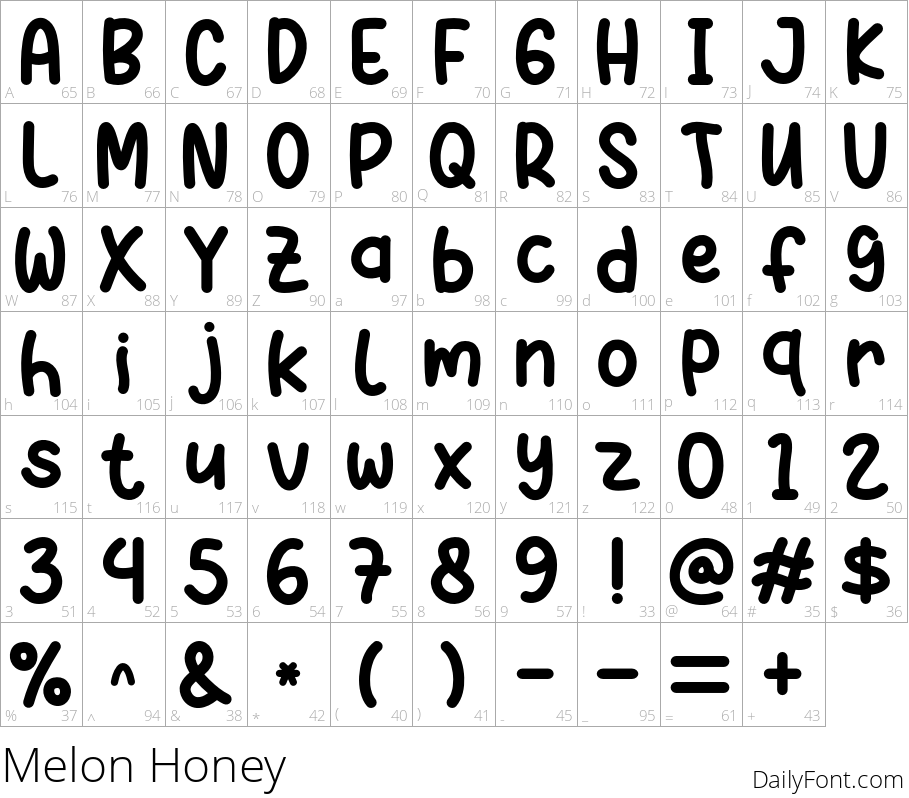
Melon Honey
Searching for a warm, approachable, and uniquely crafted handwritten font? Look no further than a sweet and friendly script like Melon Honey! This charming font is perfect for designers seeking a natural, effortless vibe that can be applied to a wide range of projects.
Melon Honey's organic feel makes it an excellent choice for creative endeavors where you want your message to exude warmth and personality. Its varying letterforms and subtle flair give the impression of handwritten text, imbuing your design with a sense of authenticity and human touch.
Whether you're working on a blog post, social media campaign, or branding project, Melon Honey's versatility ensures it will complement your content while adding a dash of whimsy and charm. With its many variations, you can customize the font to suit your style, from bold headlines to delicate body text.
If you're looking for a font that adds a touch of playfulness and friendliness to your design, Melon Honey is the perfect choice. Its unique aesthetic will help your project stand out in a crowd, making it an excellent addition to any designer's toolkit.